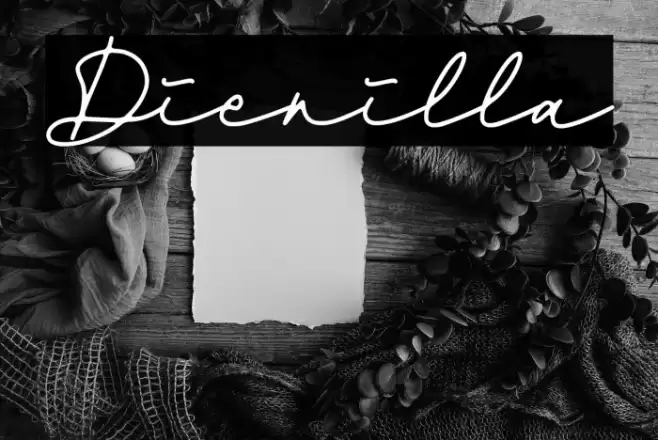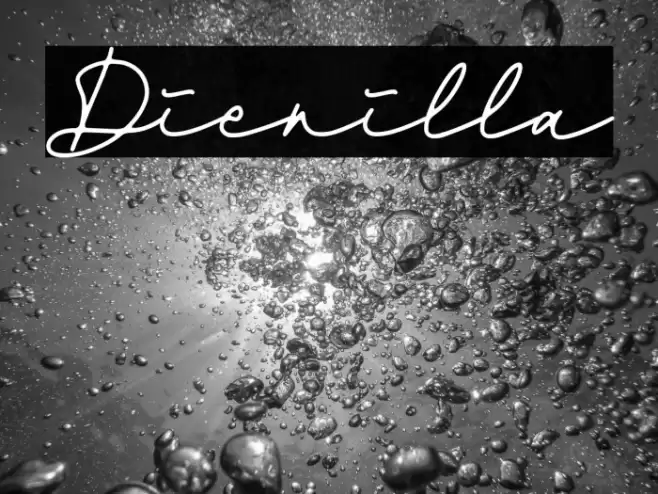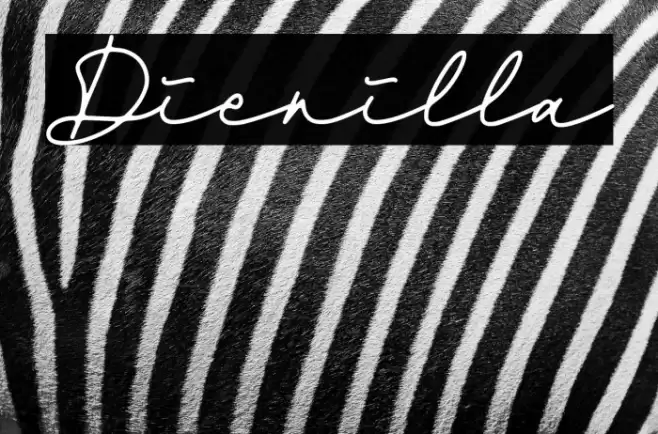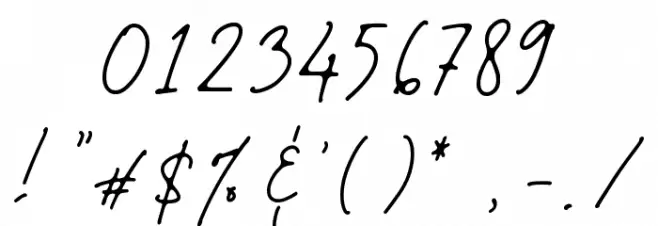
Dienilla Font
Dienilla Description
This elegant script font features a flowing, cursive style with smooth, continuous strokes that mimic natural handwriting. The uppercase letters are gracefully elongated, with distinctive loops and swirls that add a touch of sophistication. The lowercase letters maintain a consistent flow, with subtle variations that enhance the handwritten feel. Numbers and special characters are crafted with the same attention to detail, ensuring a cohesive look across all text. The font's delicate lines and curves make it ideal for projects that require a personal, artistic touch.
A graceful script font with flowing, cursive strokes and elegant loops from Regular fonts.
- Overall Style: Elegant